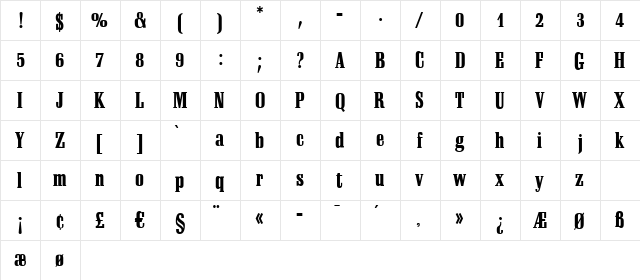
Sheridan Regular
Design Context for Sheridan Typeface
Sheridan takes a measured approach to typography — its balanced proportions and neutral character make it a reliable workhorse for both digital and print work.